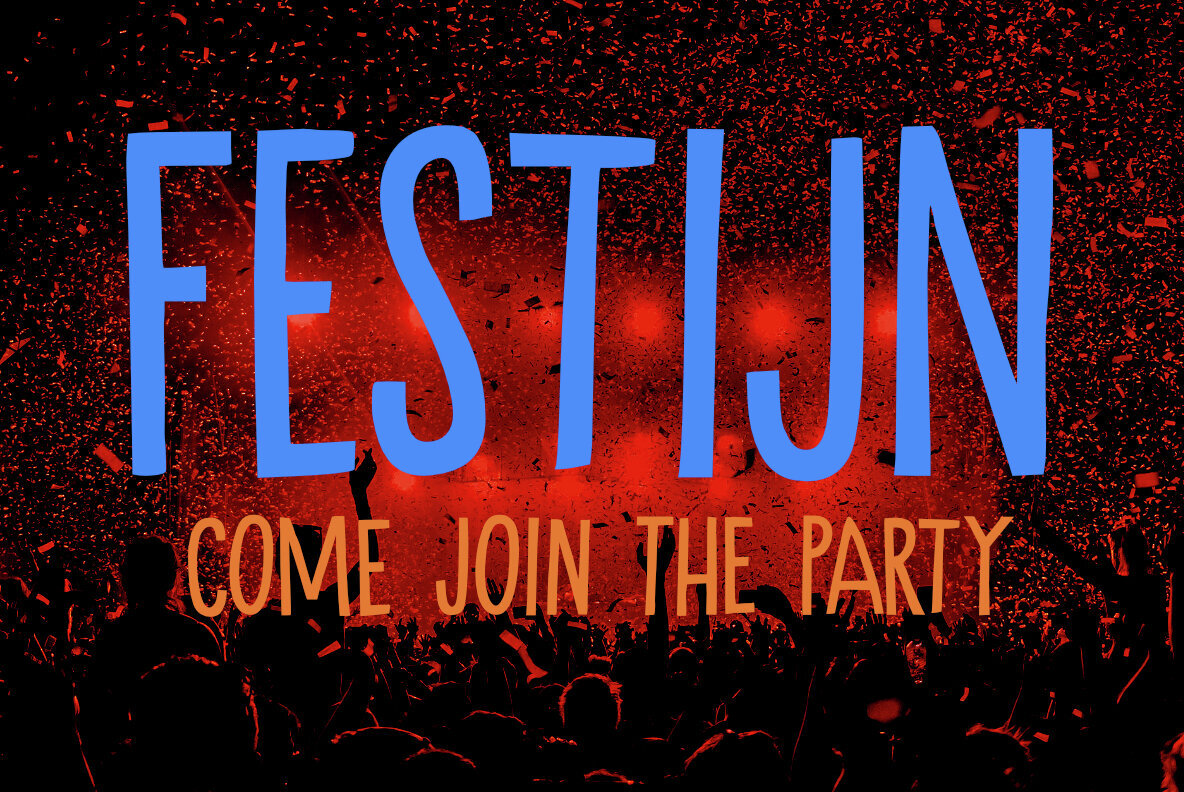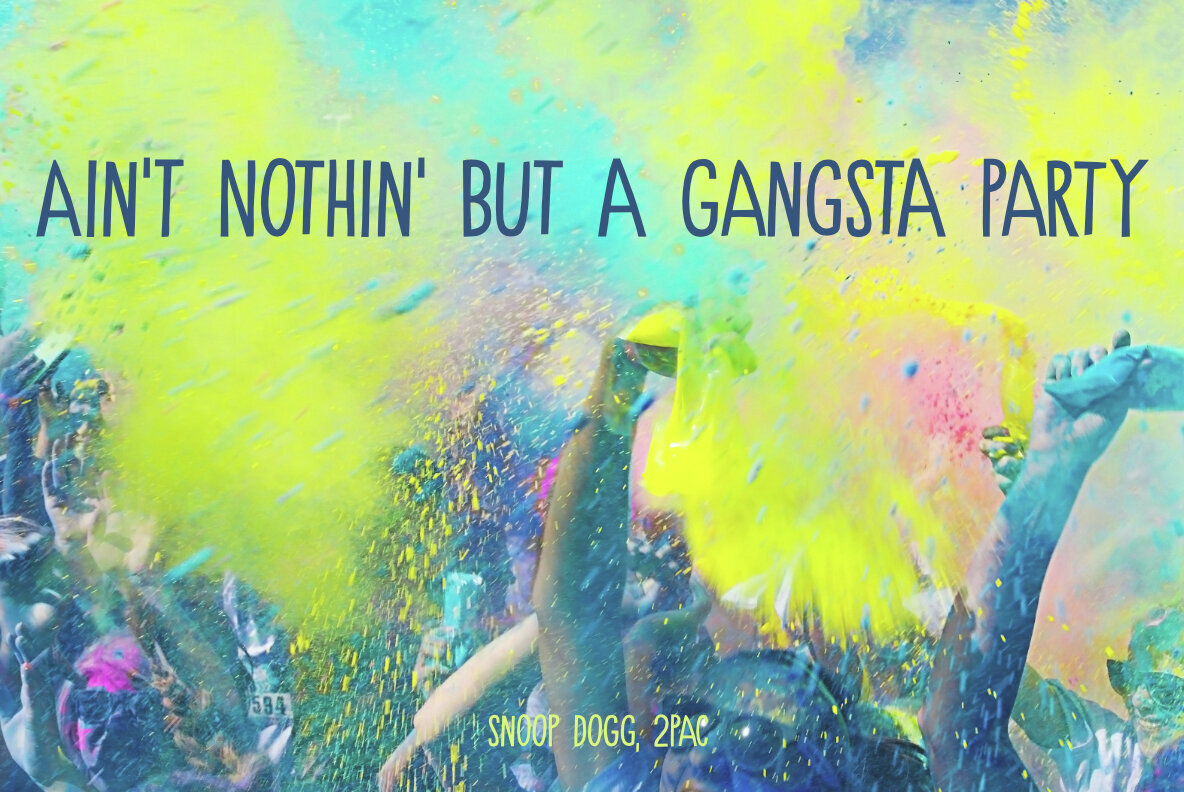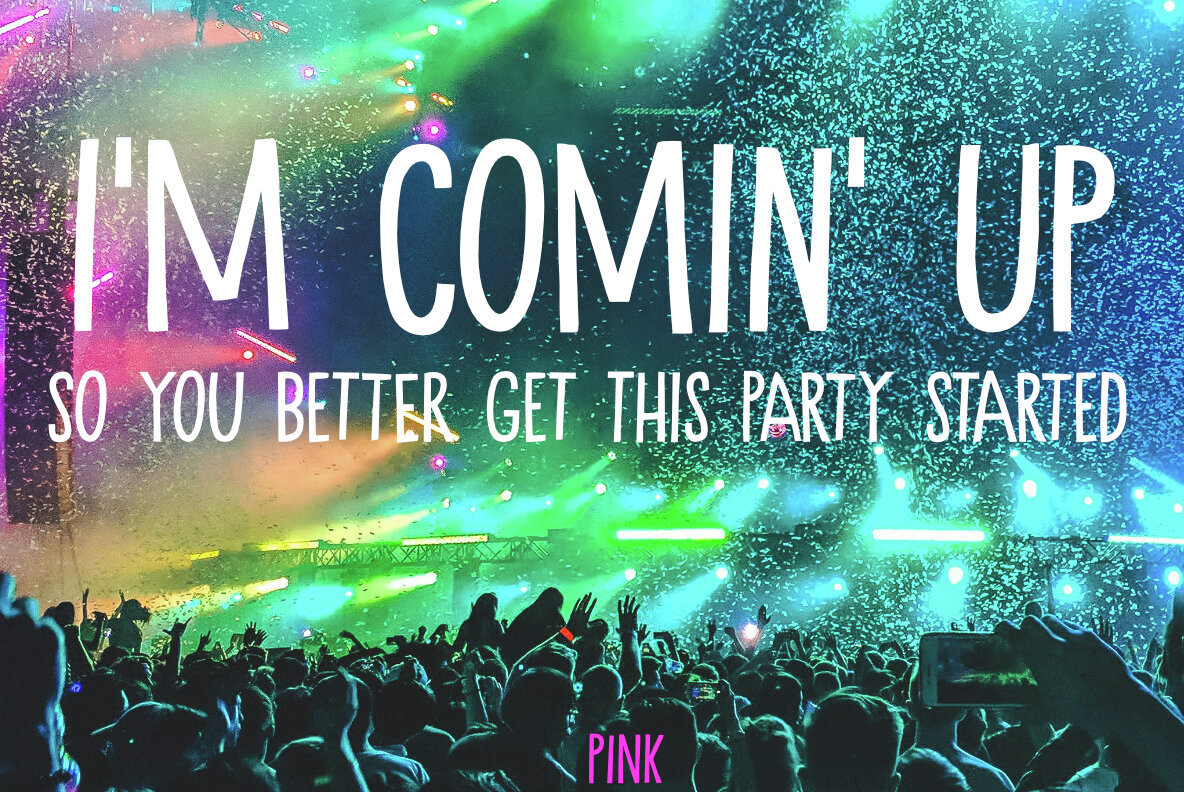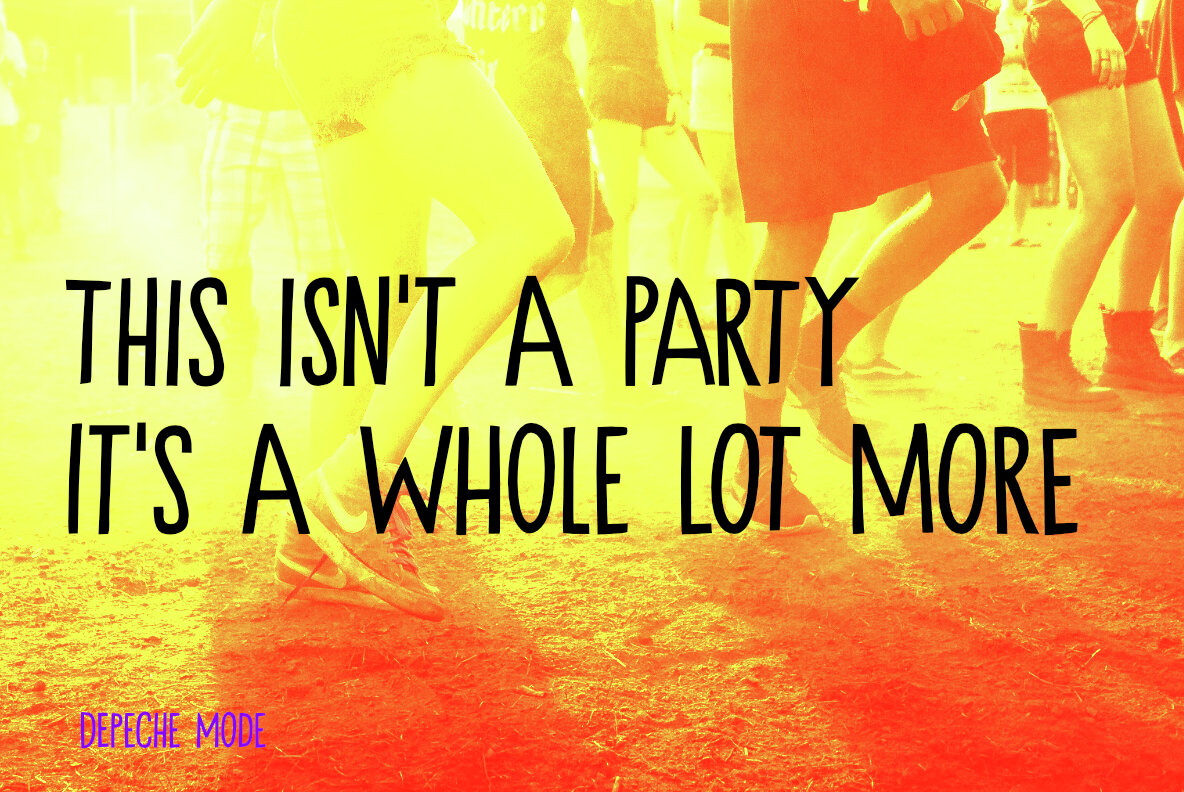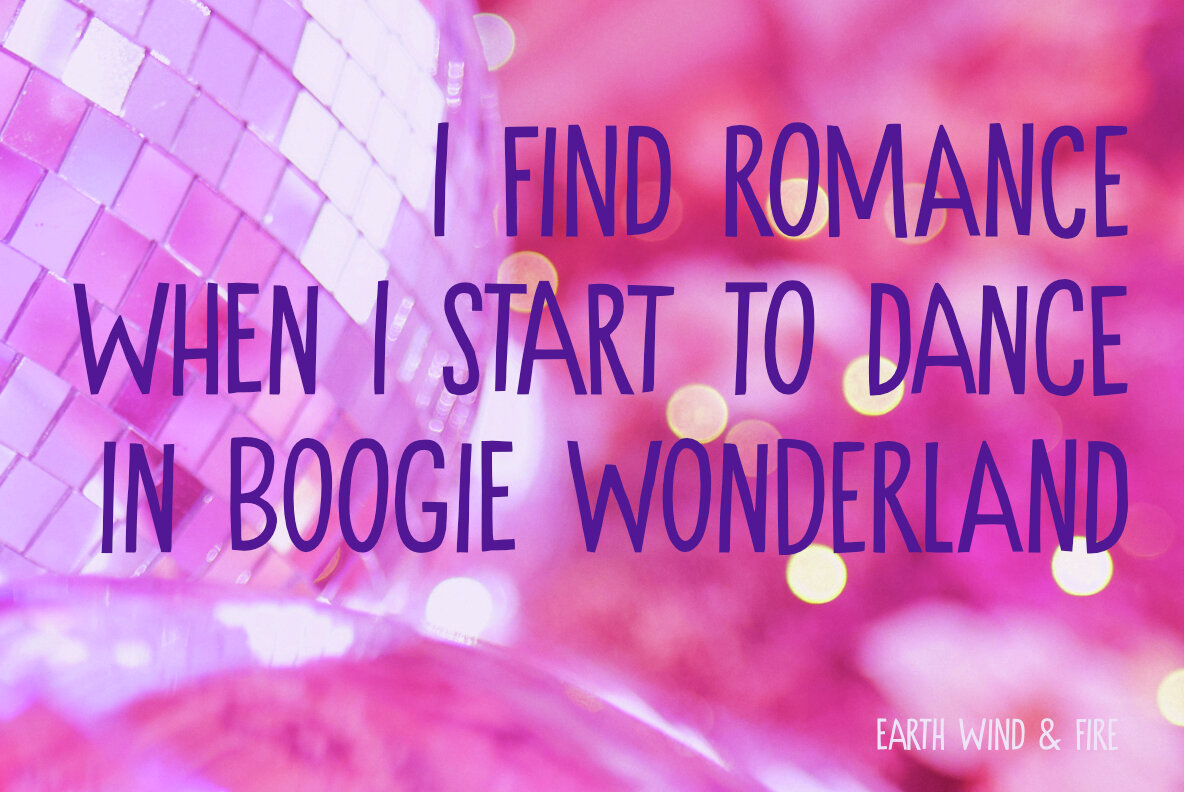
Festijn Font
Festijn, inspired by the Dutch word for 'festival' or 'party', is a lively and dynamic all-caps typeface with a tall and thin structure. This handmade font brings a touch of celebration to any project, making it a versatile choice for a variety of design needs. Whether you're crafting eye-catching party posters or unique food truck menus, Festijn adds an energetic flair to your text.
Designed to capture the vibrant spirit of festivities, Festijn's distinct style makes it suitable for any occasion where a festive mood is desired. Its sharp, elegant lines and high legibility ensure your message stands out, allowing you to communicate effectively while maintaining an artistic edge. Ideal for designers looking to infuse a sense of joy and excitement into their work, Festijn is perfect for projects that require a bold and lively touch.